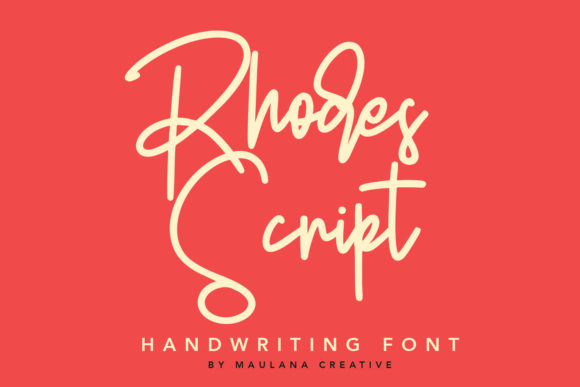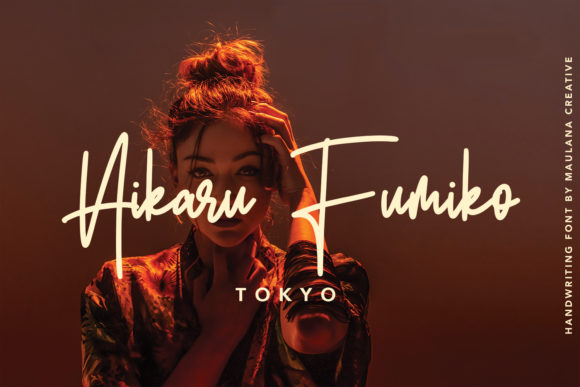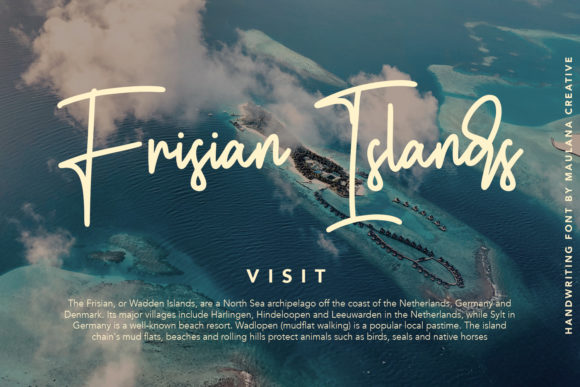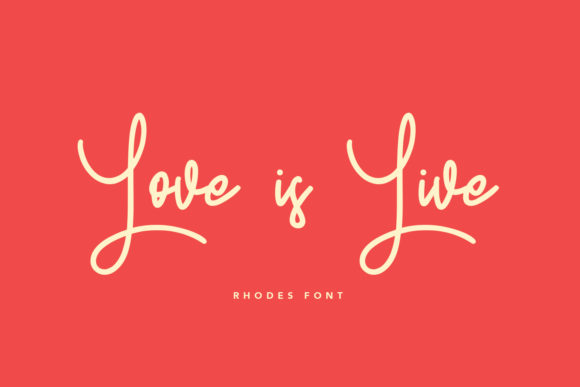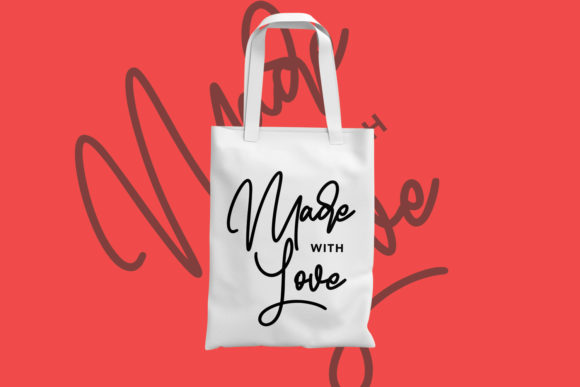
About Rhodes Script Font
Rhodes Script sounds like a beautiful and versatile handwritten font that can add elegance and charm to various design projects. Let’s explore some creative ideas on how to use Rhodes Script font to bring your projects to life:
1. Wedding Invitations: Create stunning and romantic wedding invitations using Rhodes Script font for the couple’s names and elegant details.
2. Branding: Use Rhodes Script font in your brand logo or as part of your brand identity to add a touch of sophistication and personalization.
3. Calligraphy Art: Create calligraphy art pieces and wall decor using Rhodes Script font for beautiful and inspirational quotes.
4. Greeting Cards: Design elegant and heartfelt greeting cards for special occasions like birthdays, anniversaries, and holidays.
5. Packaging Design: Incorporate Rhodes Script font into packaging design for artisanal products, adding a luxurious and handmade feel.
6. Social Media Quotes: Share inspirational and motivational quotes on social media platforms using Rhodes Script font to create eye-catching graphics.
7. Blog Headers: Use Rhodes Script font for blog headers and featured images to add a touch of elegance to your website.
8. Personal Stationery: Design personalized stationery sets, including notepads, letterheads, and envelopes, using Rhodes Script font.
9. Product Labels: Use Rhodes Script font for product labels on handmade or artisanal goods to showcase their uniqueness.
10. Menu Design: Create stylish and attractive menus for restaurants or cafes using Rhodes Script font for a touch of elegance.
11. Certificate Design: Use Rhodes Script font for certificates, diplomas, or awards, making them more special and memorable.
12. Event Signage: Design eye-catching event signage, such as welcome signs and directional signs, using Rhodes Script font.
13. Book Covers: Use Rhodes Script font for book titles and author names on book covers to add an elegant and timeless touch.
14. Inspirational Wall Art: Design printable wall art featuring inspirational quotes or phrases in Rhodes Script font.
15. Embroidery Designs: Create embroidery patterns and designs using Rhodes Script font for personalized and handmade gifts.
16. Personalized Gifts: Use Rhodes Script font to personalize gifts like mugs, phone cases, or tote bags for a thoughtful touch.
17. Jewelry Design: Incorporate Rhodes Script font into custom jewelry designs for engraved messages or monograms.
18. Event Invitations: Design elegant invitations for special events, such as gala dinners or fundraising events, using Rhodes Script font.
19. Magazine Titles: Use Rhodes Script font for magazine cover titles or headlines, adding a touch of sophistication.
20. Art Prints: Create art prints featuring beautiful illustrations and hand-lettered phrases using Rhodes Script font.
In summary, Rhodes Script is a flowing handwritten font that offers endless creative possibilities. From wedding invitations to social media quotes and personalized gifts, let your creativity shine as you use Rhodes Script font to add elegance and timeless beauty to your designs!